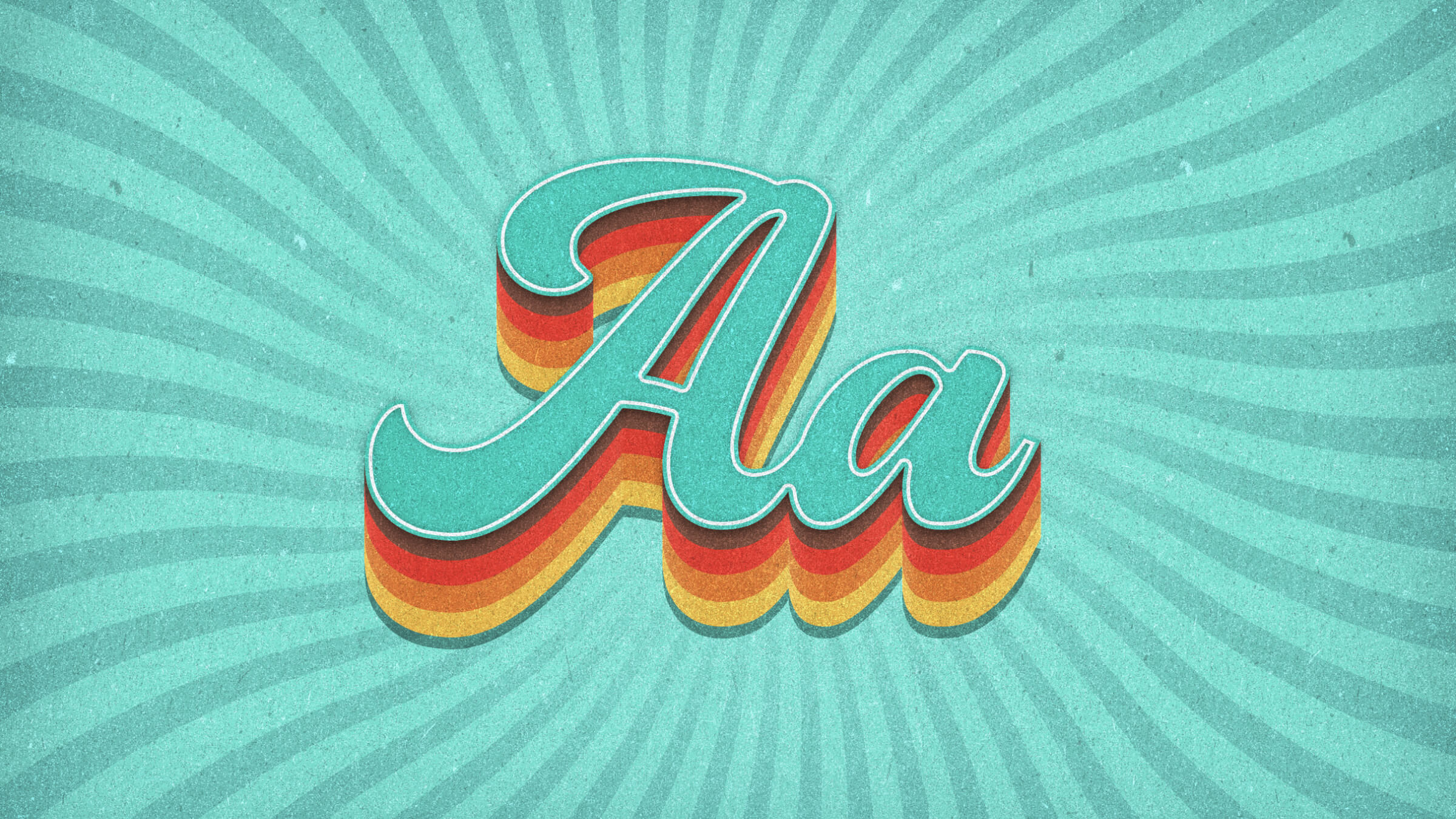
Top 10 Vintage and Retro Fonts
Looking to add a touch of nostalgia to your next project? Check out these charming vintage and retro fonts.
Top Vintage and Retro Fonts
Vintage design is always in fashion, thanks to the elegant and nostalgic feeling it immediately evokes. The popularity of all things vintage and retro is evident in everything from collectors items to classic film-inspired design, and this is no different in the world of fonts and typefaces.
We’ve talked about Retro Design Trends in their own right as well as looked at the Best Retro and Vintage Design Templates to get you started, and now it’s time for vintage fonts to have their moment.
What is a Vintage Font?
To start with, what is a vintage font? From sweet vintage script fonts to gothic vintage cursive fonts, there are plenty of styles to choose from. Vintage styles can lend themselves to authenticity, playfulness and, of course, each comes with its own subtle or overt connotations. The style you go for depends on the needs of your design.
What are the Most Popular Vintage Fonts?
Popularity has been rising steadily; retro and ‘80s styles both made appearances in our wrap up of Best Font Designs for 2020. Thanks to a continued resurgence in nostalgic design in general, the history and background of many of these styles now sees them used more and more cleverly.
1. The Crow – Vintage Style Fonts by cruzine
The Crow – Vintage Style Fonts by cruzine is an example of classic, lost-in-the-woods gothic aesthetic. With a feel of Tim Burton’s Sleepy Hollow and wood textures that give a nod to Southern Gothic, this package includes eight vintage styles featuring a custom serif font. (For more on cinematic fonts, check out our pick of best movie fonts as well as what makes for the best movie poster font.)
2. Ramsay Retro Script by cruzine
When you think of early 20th century advertising, it’s easy to conjure up an image of a housewife extolling the virtues of a new appliance, or a working glass man, sleeves rolled up, selling you his favorite cold drink. With such a rich and evocative history, these styles provide the perfect opportunity for satirical or cheeky messaging. Ramsay Retro Script by cruzine is inspired by exactly this style of vintage, and featuring casual brush styles and a swashes font, it makes achieving this look a cinch.
3. Routhers Retro + Extrude by saridezra
Nothing says long summer days and carefree nights like a ‘70s bubble font. Routhers Retro + Extrude by saridezra gives you all you need to recreate this feeling – instantly bringing to mind ice-cold Sunny Boys at the beach – especially suited to music or event branding.
4. Mutiara Vintage by Lostvoltype
Bold and rough, Mutiara Vintage by Lostvoltype is simple in style and big on impact. Ideal for food and drink related content and product promotion, and with a style suited to magazine editorial, this package is also flexible across languages.
5. Carters by swistblnk
For a retro feel with a slick and classy finish, Carters by swistblnk is great for projects that need a subtle hand for understated impact. With a New York City cafe and restaurant feel, this pack features a range of regular and shadow/drop shadow options, making it suitable for headlines and signs, as well as logotypes and merchandise.
6. Cambridge – Bold Decorative Gothic Font by naulicrea
Cambridge – Bold Decorative Gothic Font by naulicrea is the quintessential gothic font. At a glance, it conjures images of towering cathedrals, arrowlike spires and glinting silver swords. This classic medieval style is especially well suited to games and books, or brands with a historical-twist in their stories.
7. The Douglas Collections by adamfathony
For a package that packs a punch, look no further than this one – The Douglas Collections by adamfathony includes a whopping 12 handmade font files, 25 detailed illustrations, 24 editable text logos and 36 shape badges. This makes it especially handy for creating product labels and merchandise.